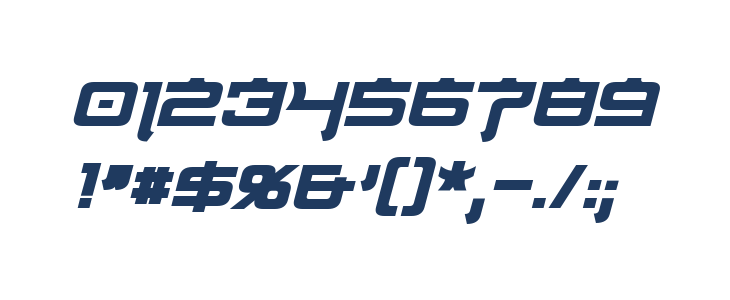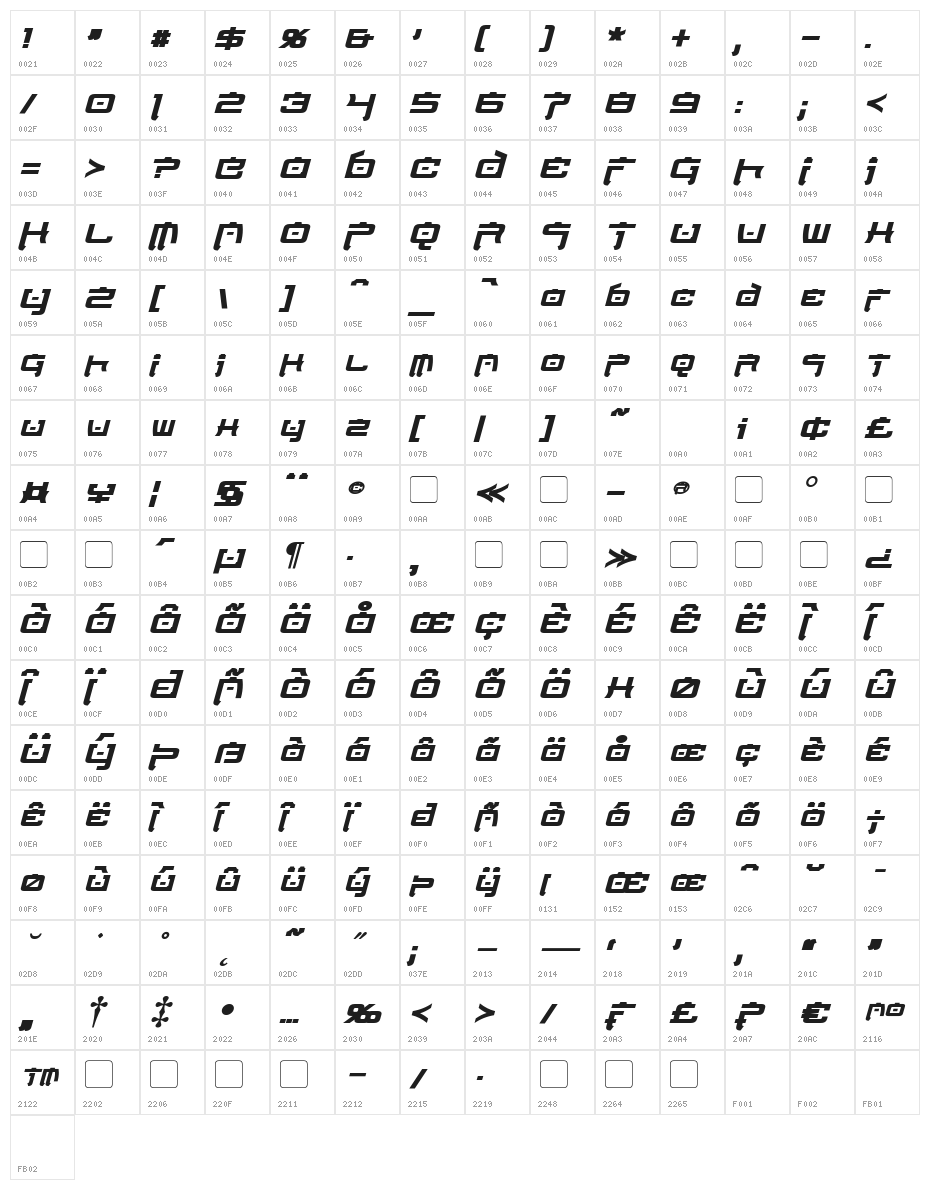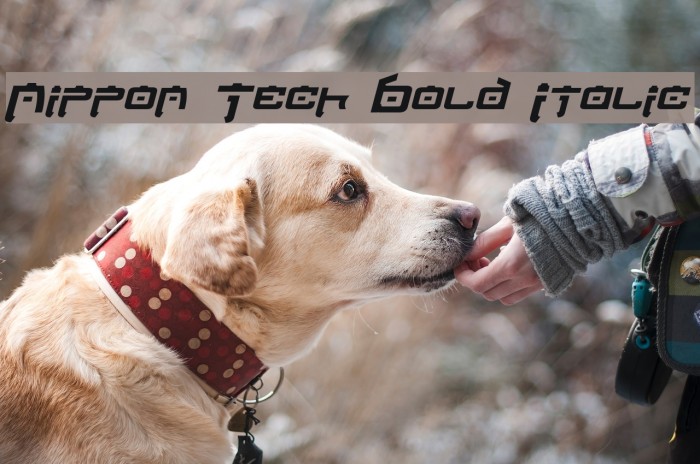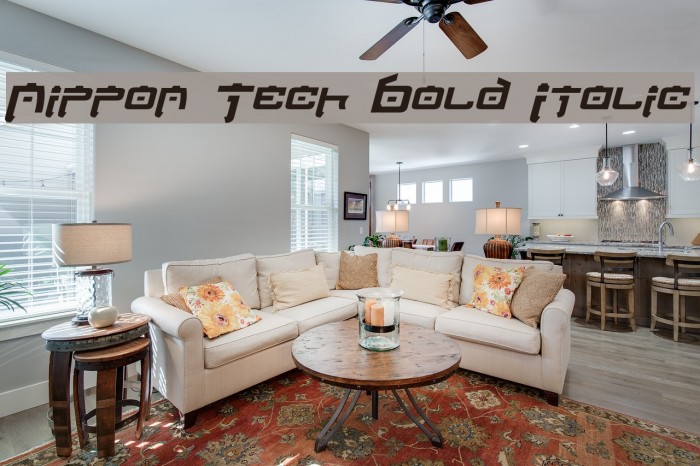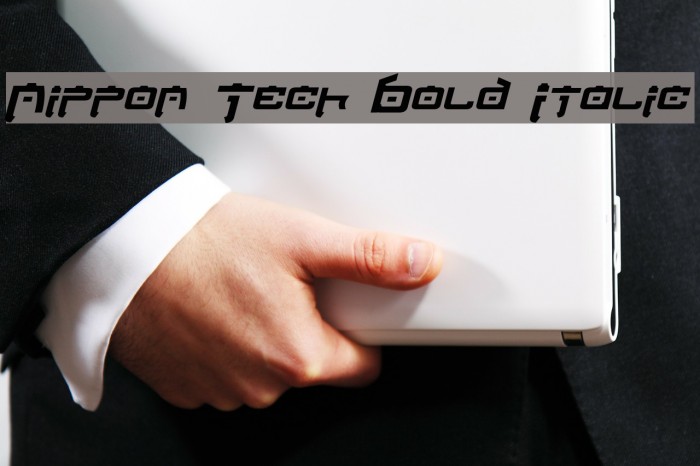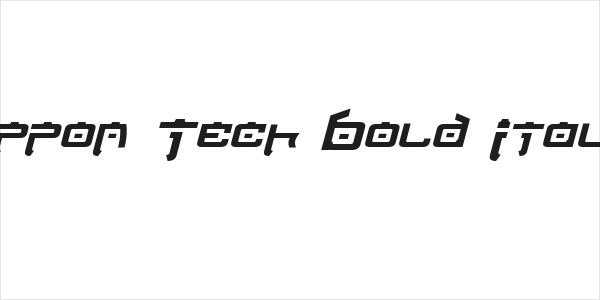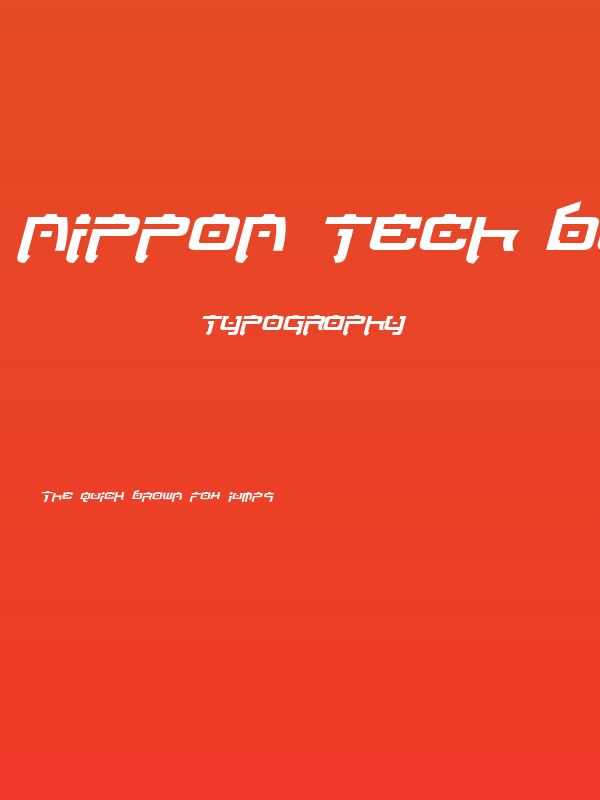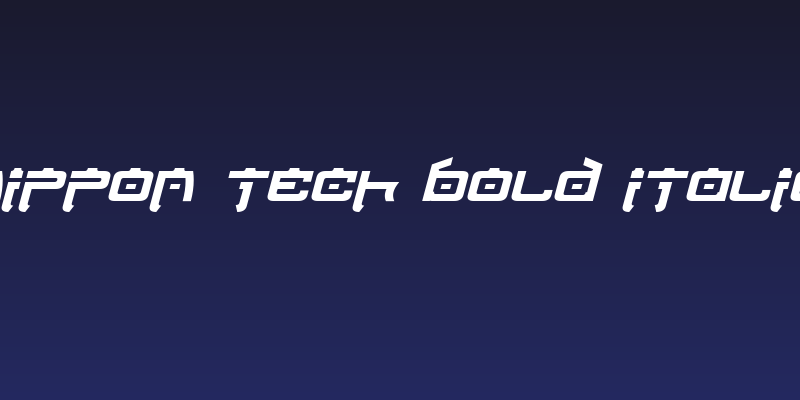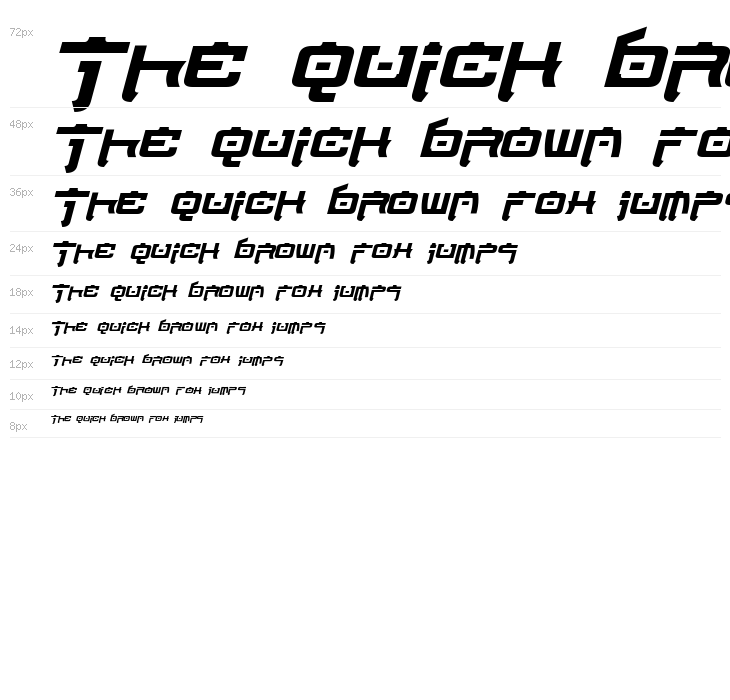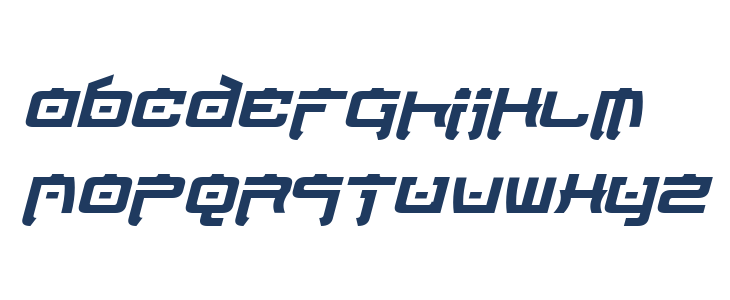
Nippon Tech Bold Italic Font
Nippon Tech Bold Italic Description
This font exhibits a futuristic and technological style, characterized by its bold and italicized form. The letters are angular with sharp edges, giving a sense of movement and speed. The design incorporates a consistent slant, enhancing its dynamic appearance. The uppercase and lowercase letters maintain a uniform style, while the numerals and special characters complement the overall aesthetic. This font is ideal for projects that require a modern and tech-savvy look, such as digital interfaces, gaming titles, or tech branding.
| Proposed Projects | Ideal for digital interfaces, gaming titles, tech branding, and futuristic designs. |